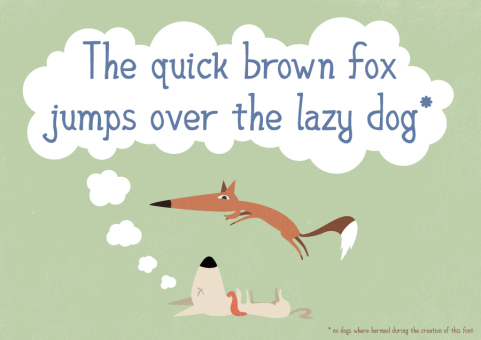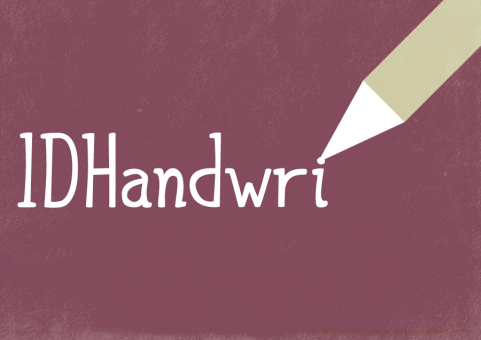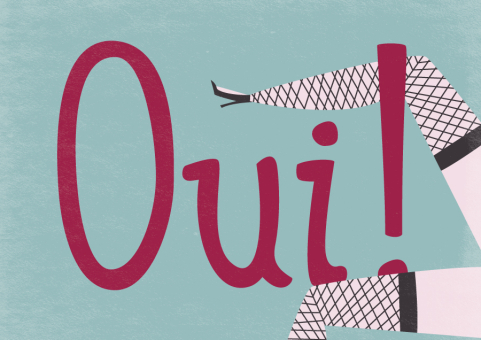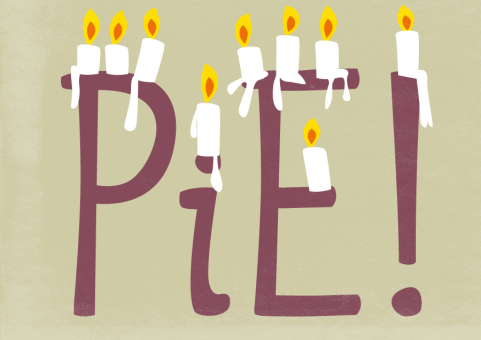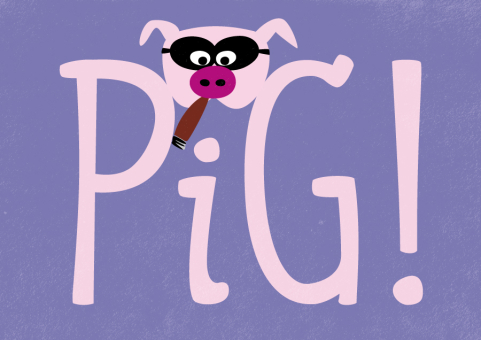
IDHandwritten
IDHandwritten is a funny font ideal for projects for kids. It supports english and greek. Hopefully in the near future I will add more glyphs and more weights.